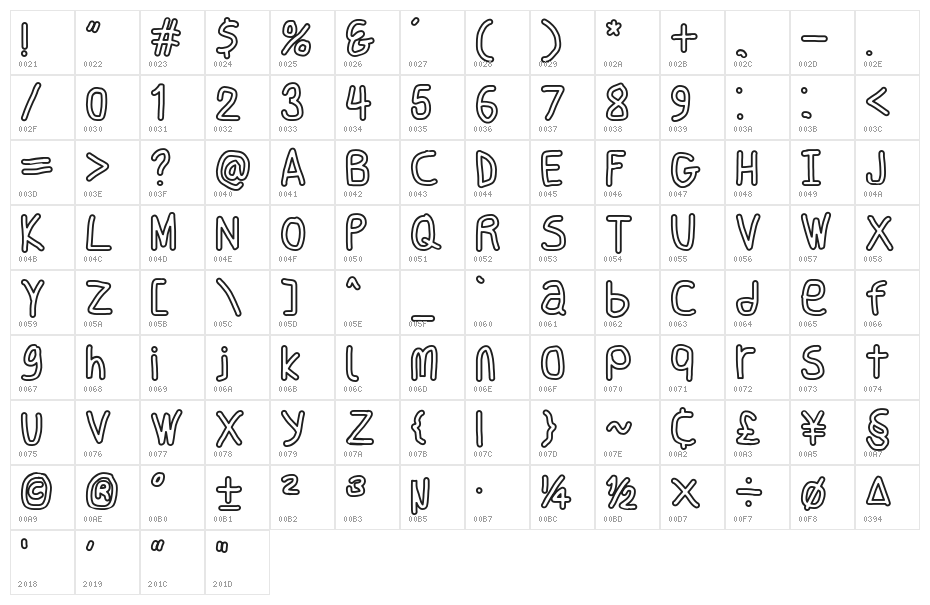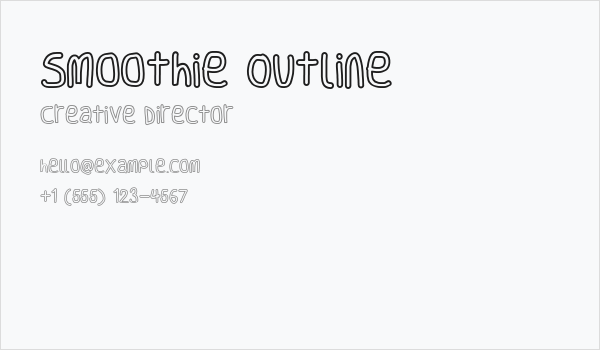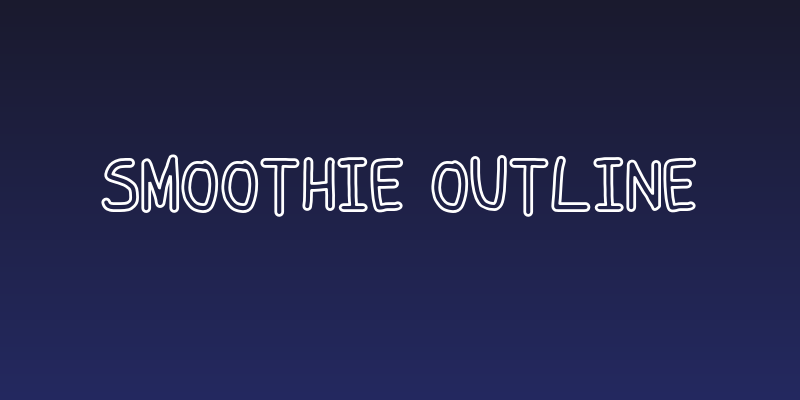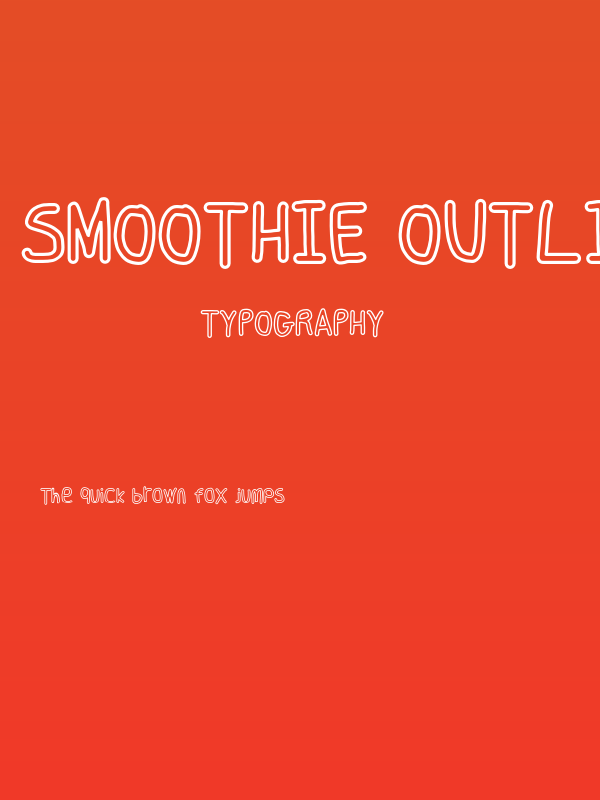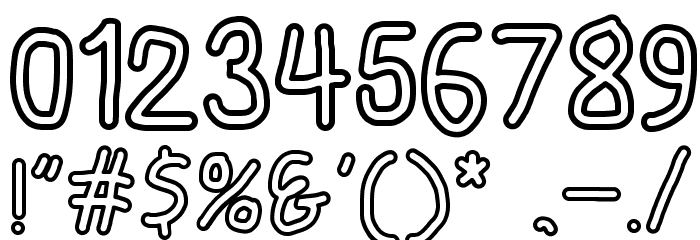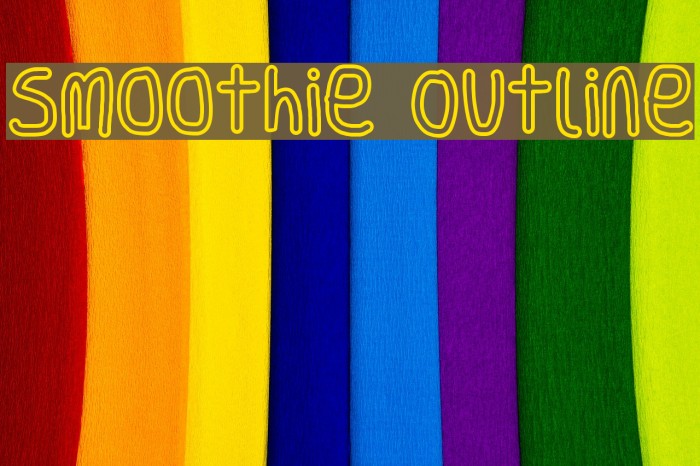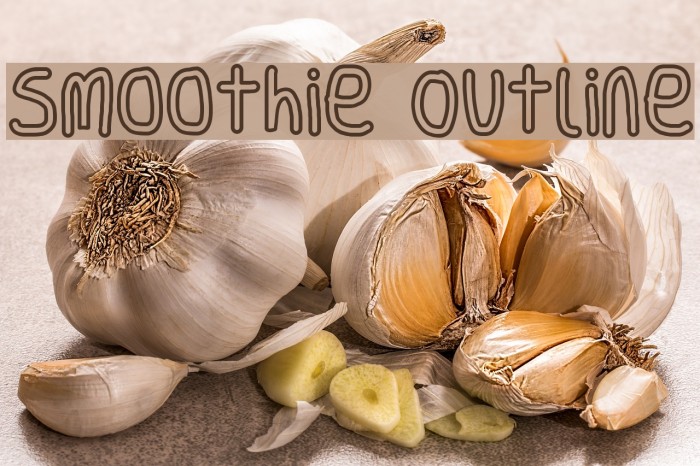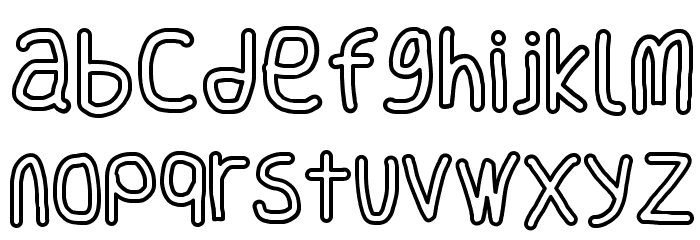
Smoothie Outline Font
Smoothie Outline Description
This playful and whimsical font features an outline style that gives it a unique, hand-drawn appearance. The characters are bold and rounded, with a consistent thickness throughout, creating a cohesive and friendly look. The uppercase and lowercase letters maintain a uniform height, contributing to its approachable and casual feel. Numbers and special characters are designed with the same outline effect, ensuring versatility across various uses. This font is perfect for projects that require a fun and informal touch, such as children's books, playful branding, or creative posters.